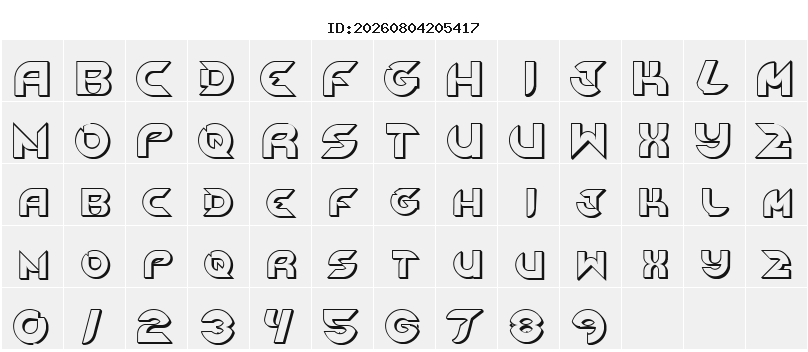
NewDigital Outline Preview
• Font Name: NewDigital Outline
• Font Style: Outline
About NewDigital Outline.ttf
NewDigital Outline.ttf is a modern, elegant sans-serif font designed for ultimate readability and visual harmony. Perfect for branding, headlines, web design, and print materials.